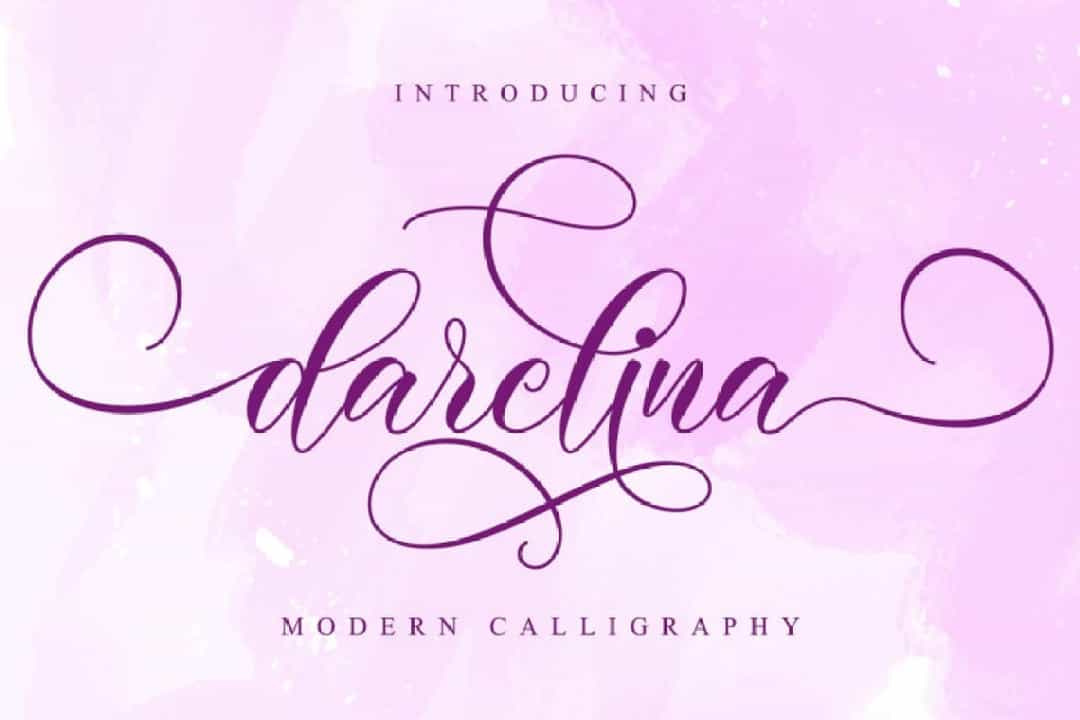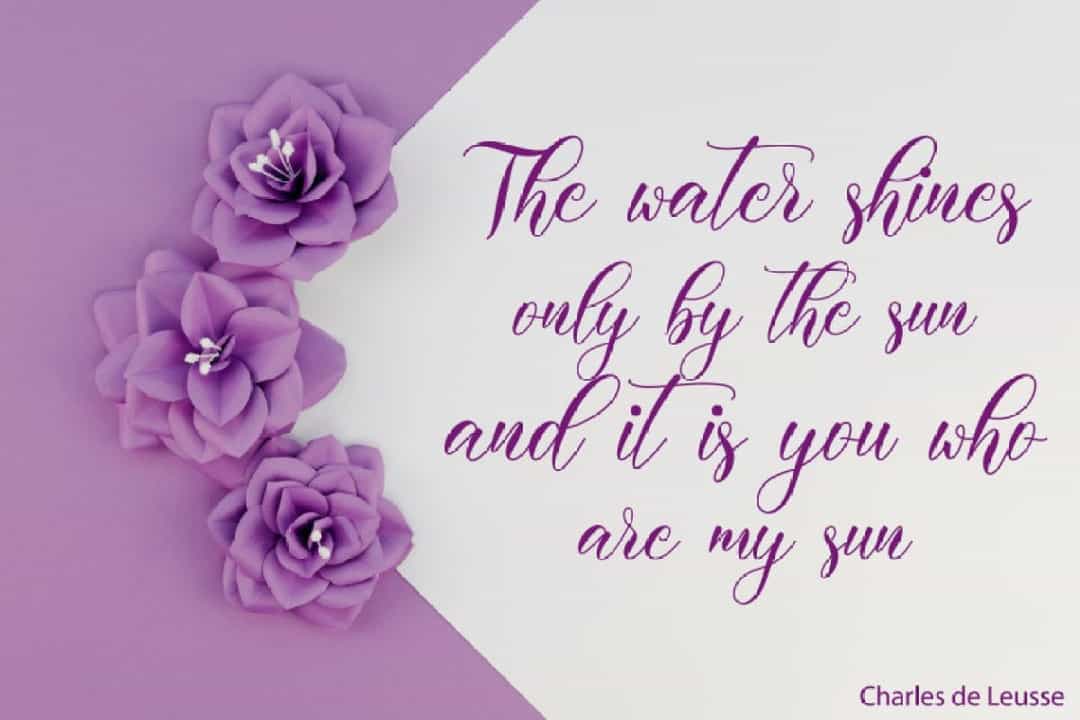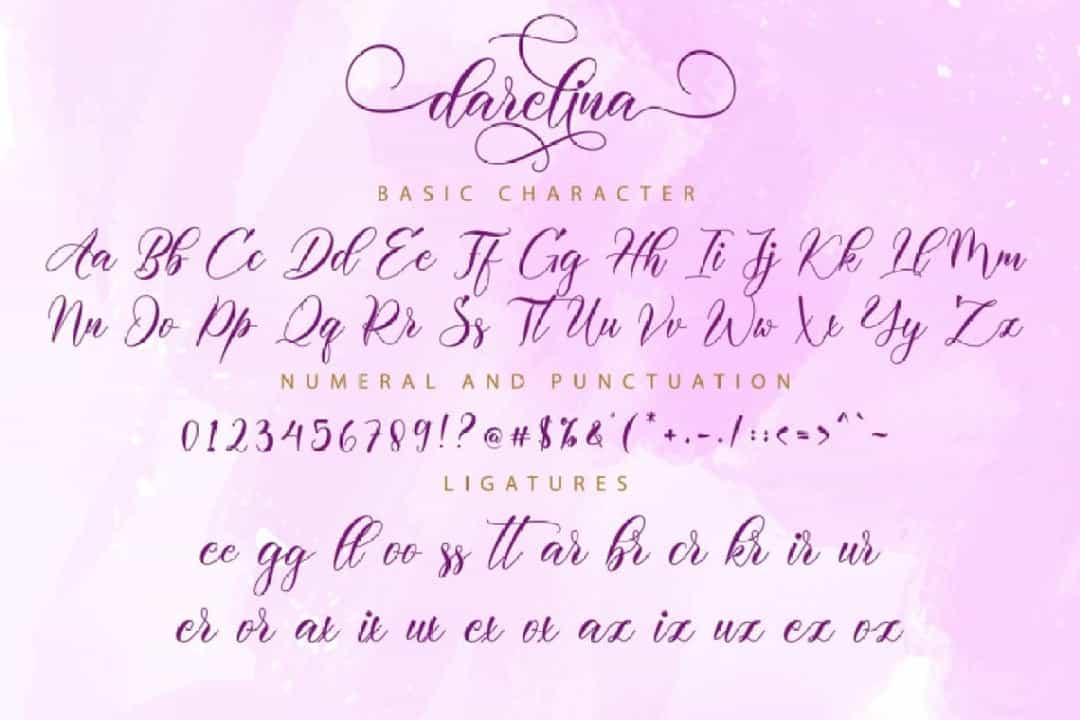
Darelina Font is a beautiful script font that has a touch of romance to it but at the same time very much contemporary. This font is perfect to be used for greeting cards and headlines and therefore can bring a romantic feel to any design project. This Font is PUA encoded, so it will be easy for you to find and use the beautiful glyphs and swashes in this font!